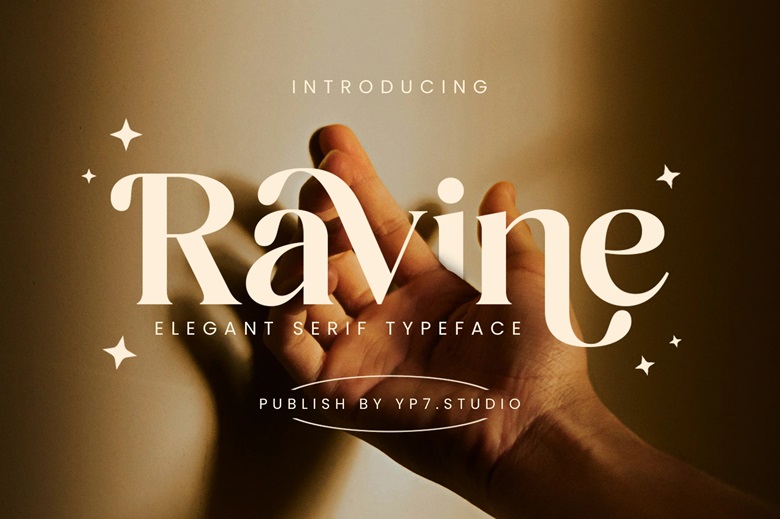
Ravine Font
Ravine is a nice serif typeface, which adds beauty to your text. It provides some sophistication to any project due to its smooth lines and elegant curves. It is very fashionable and gives a sense of confidence and sophistication, which suits the fashion magazines, stylish invitations, or some upscale branding.
You want a classic appearance or a cool touch, this font will surely give your work a certain touch of sophistication through its subtle sophistication.
Ravine Serif Font